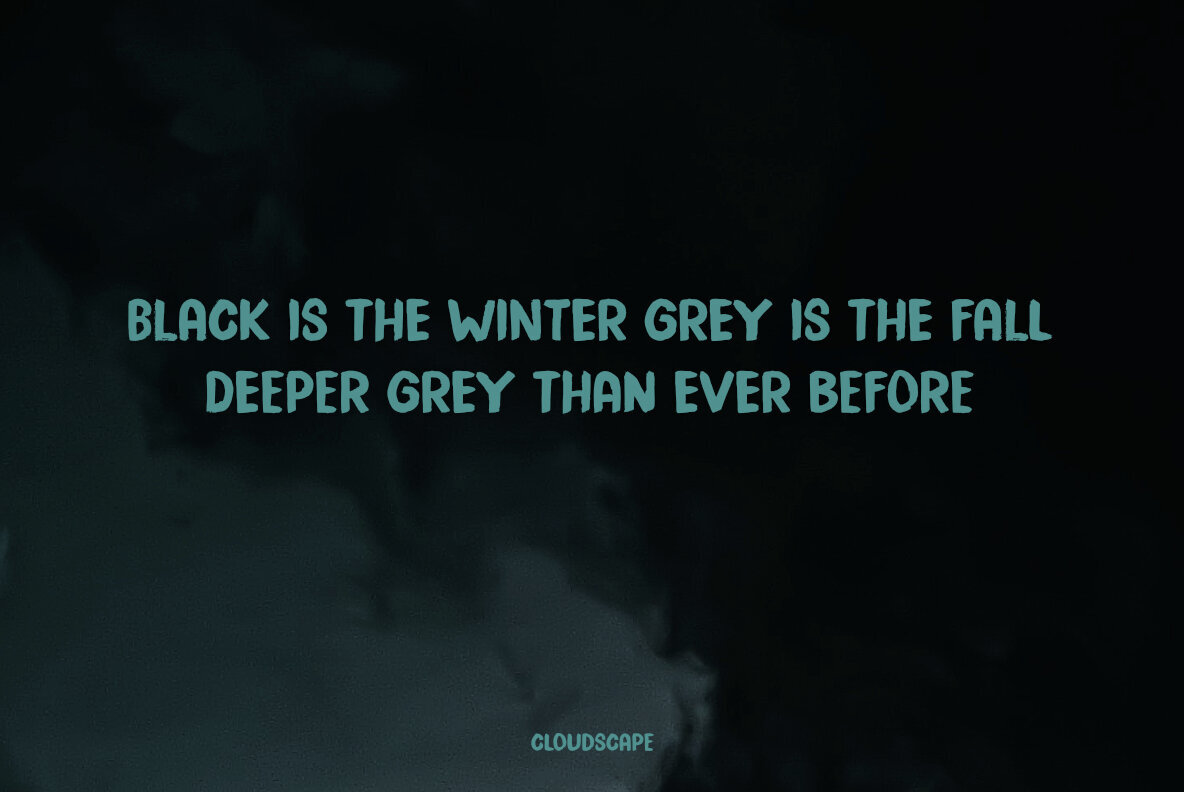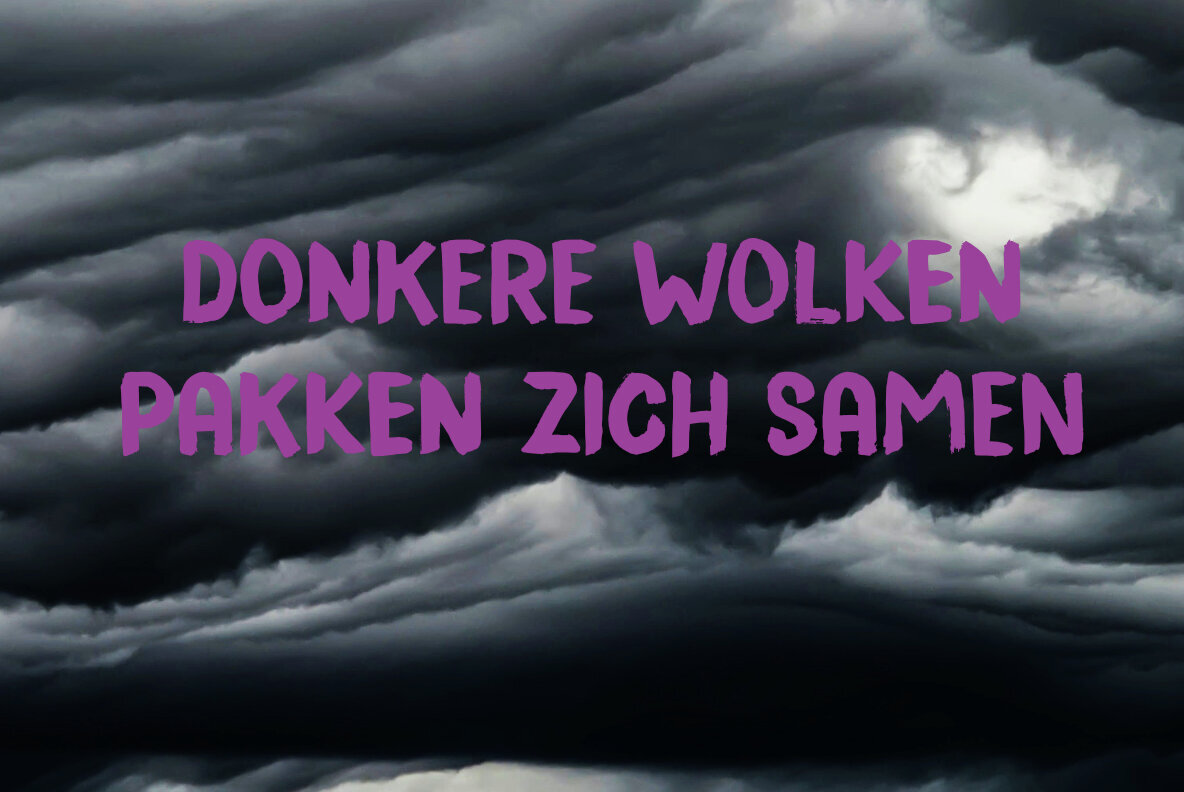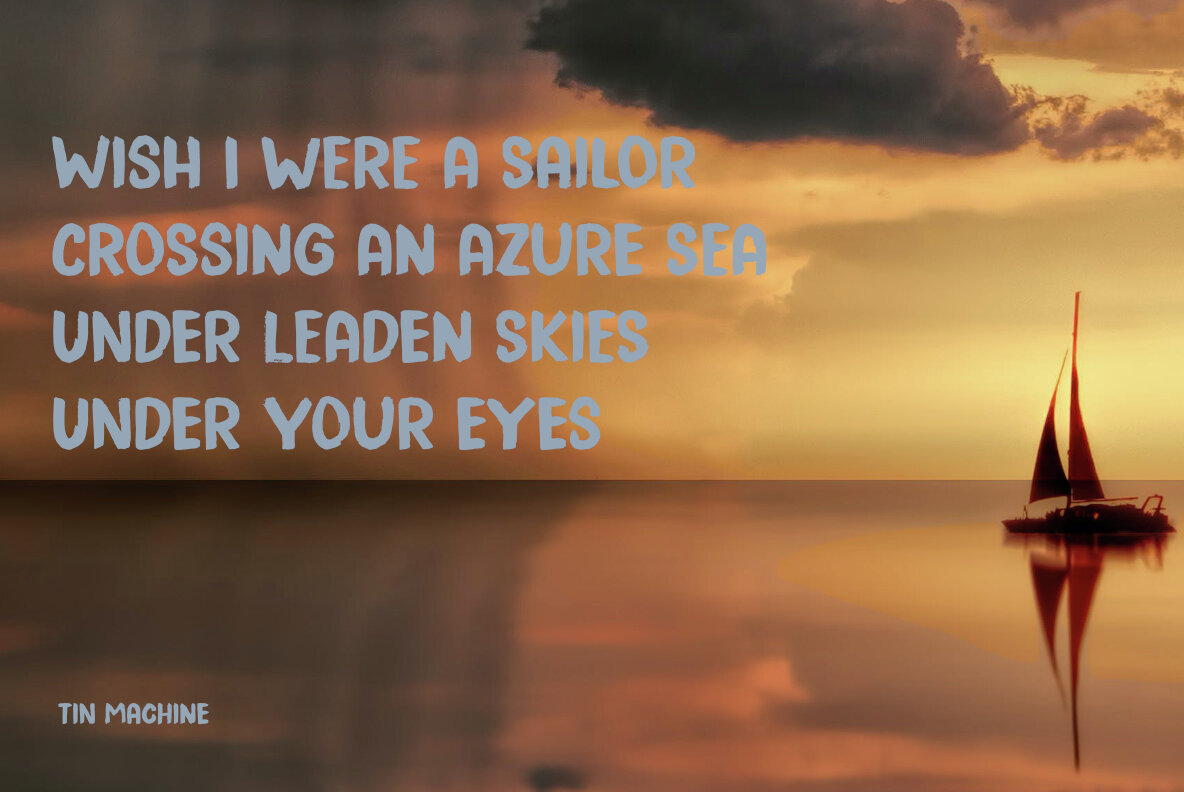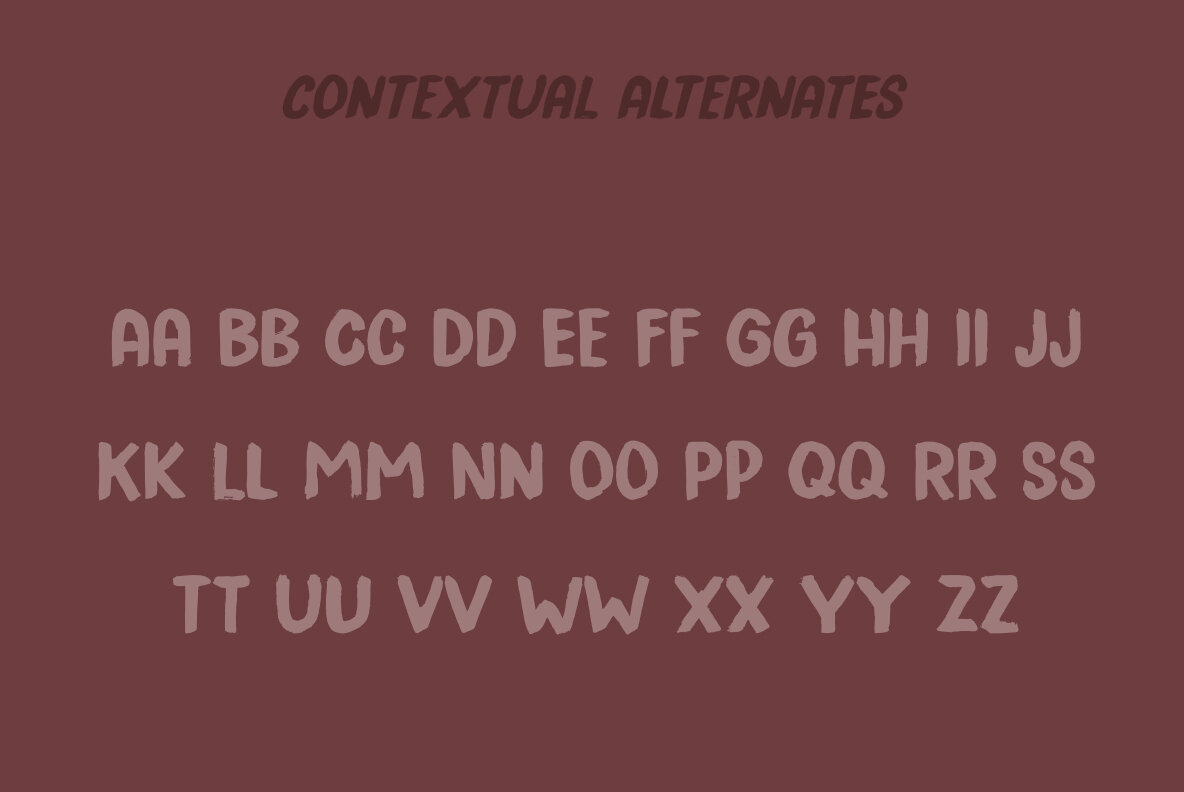
Leaden Skies Font
Leaden Skies Regular
Leaden Skies Italic
Inspired by the dramatic visual of a dark, cloudless sky, "Leaden Skies" offers a distinctive edge to your design projects. This unique font captures the essence of that rare, dusky sky phenomenon seen occasionally even in places like Holland, where cloud-covered skies are the norm. Crafted with meticulous attention using a brush and Chinese ink, Leaden Skies is an all caps display font that delivers a handmade aesthetic. Perfect for striking visual statements.Leaden Skies: Dynamic All Caps Display Font